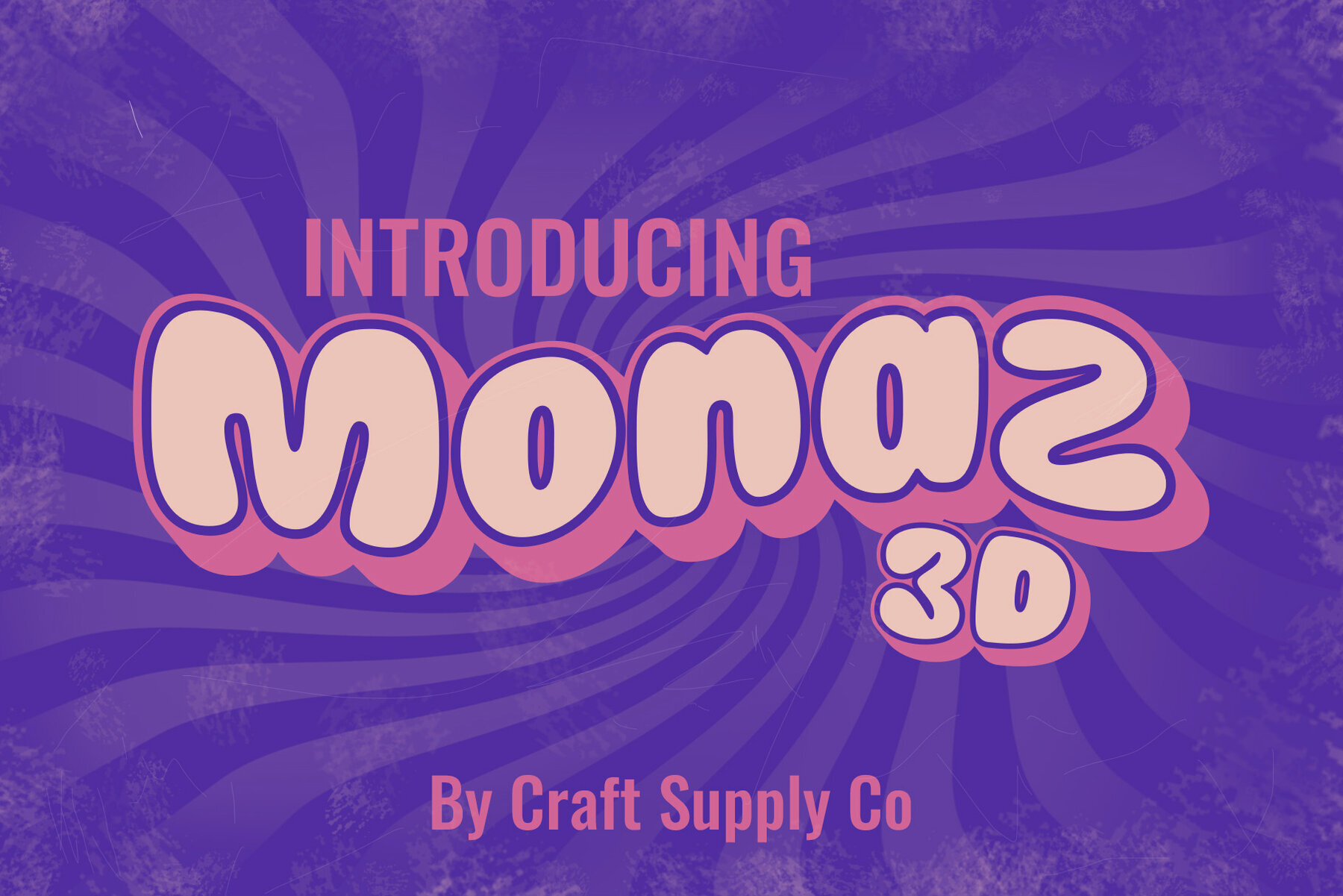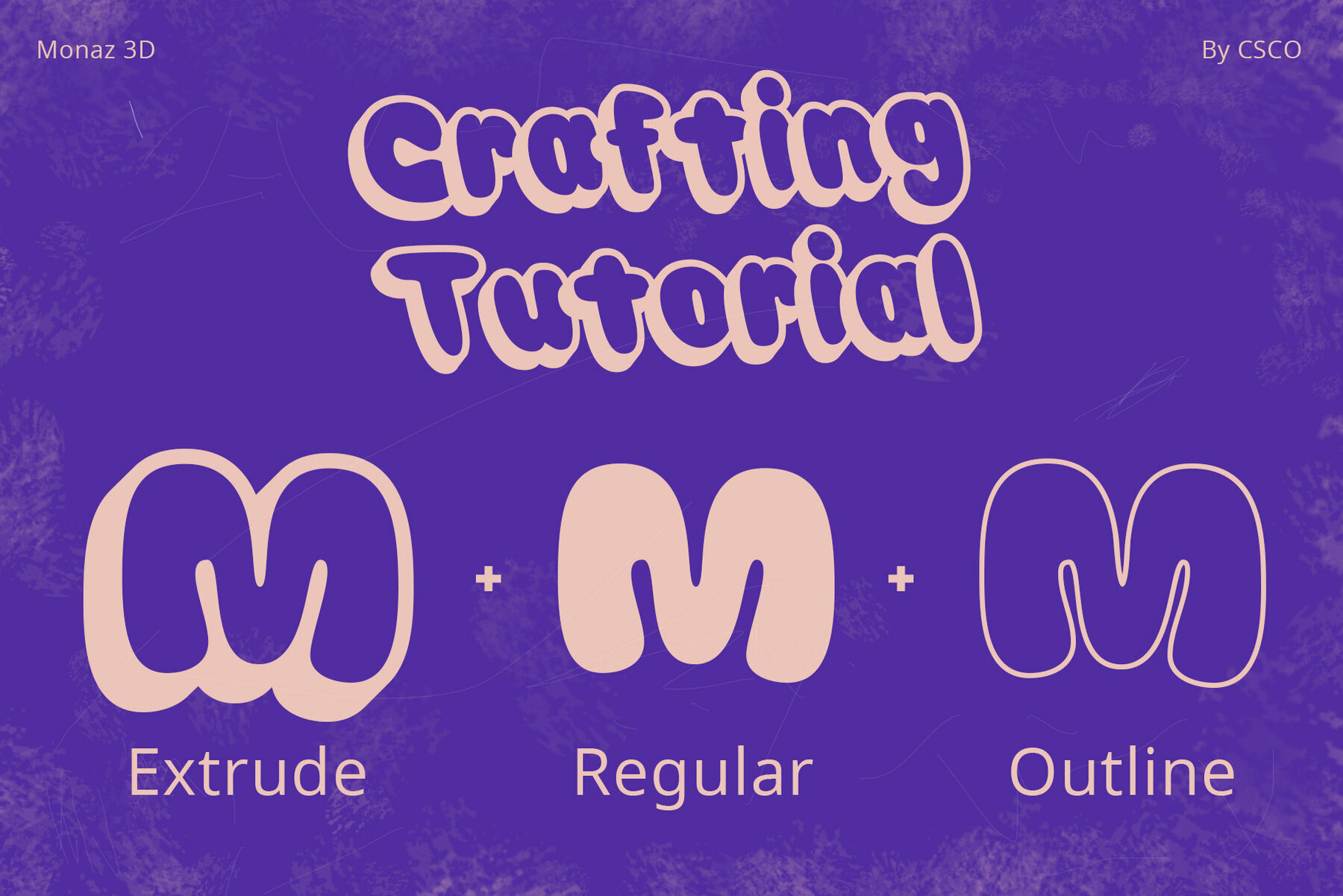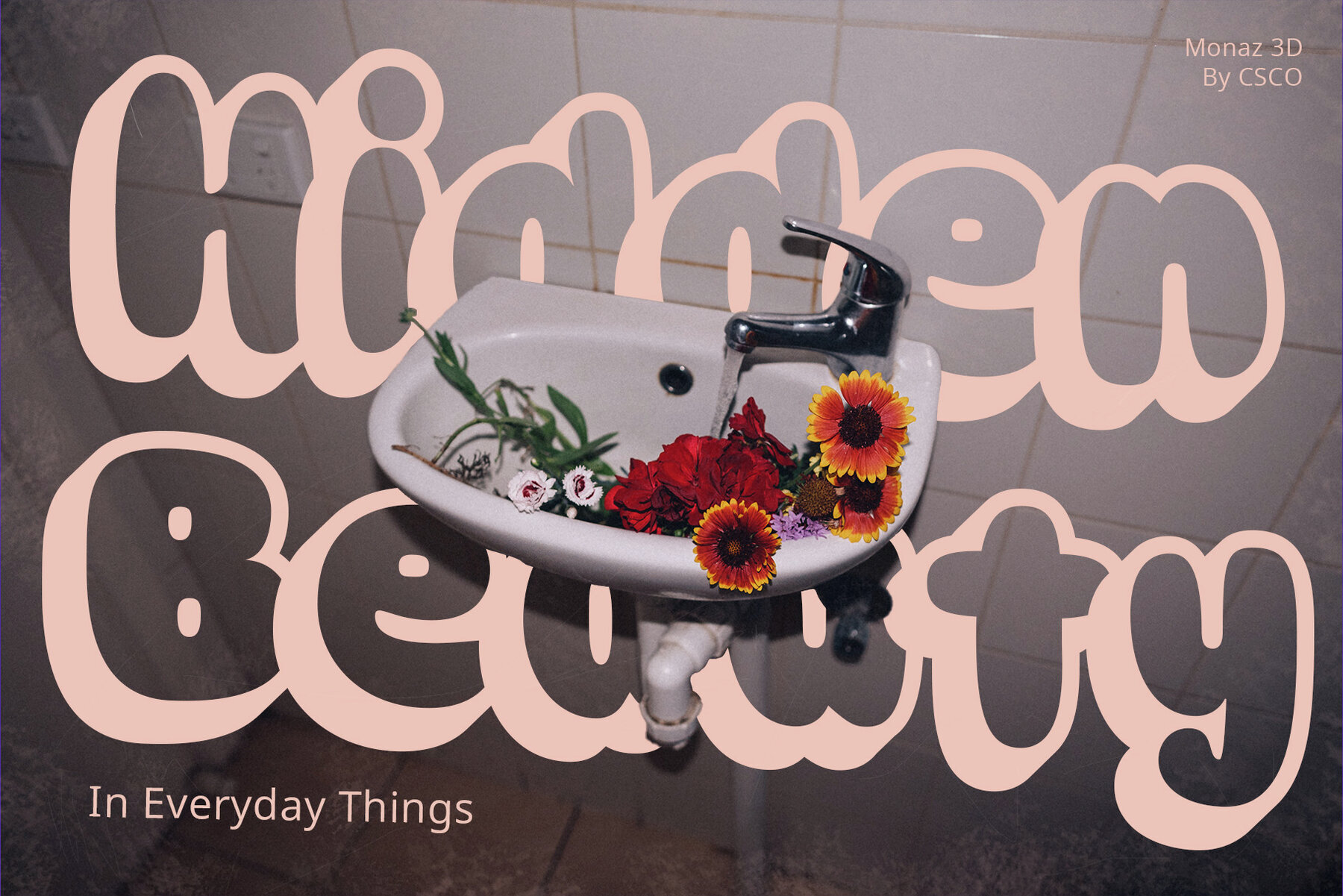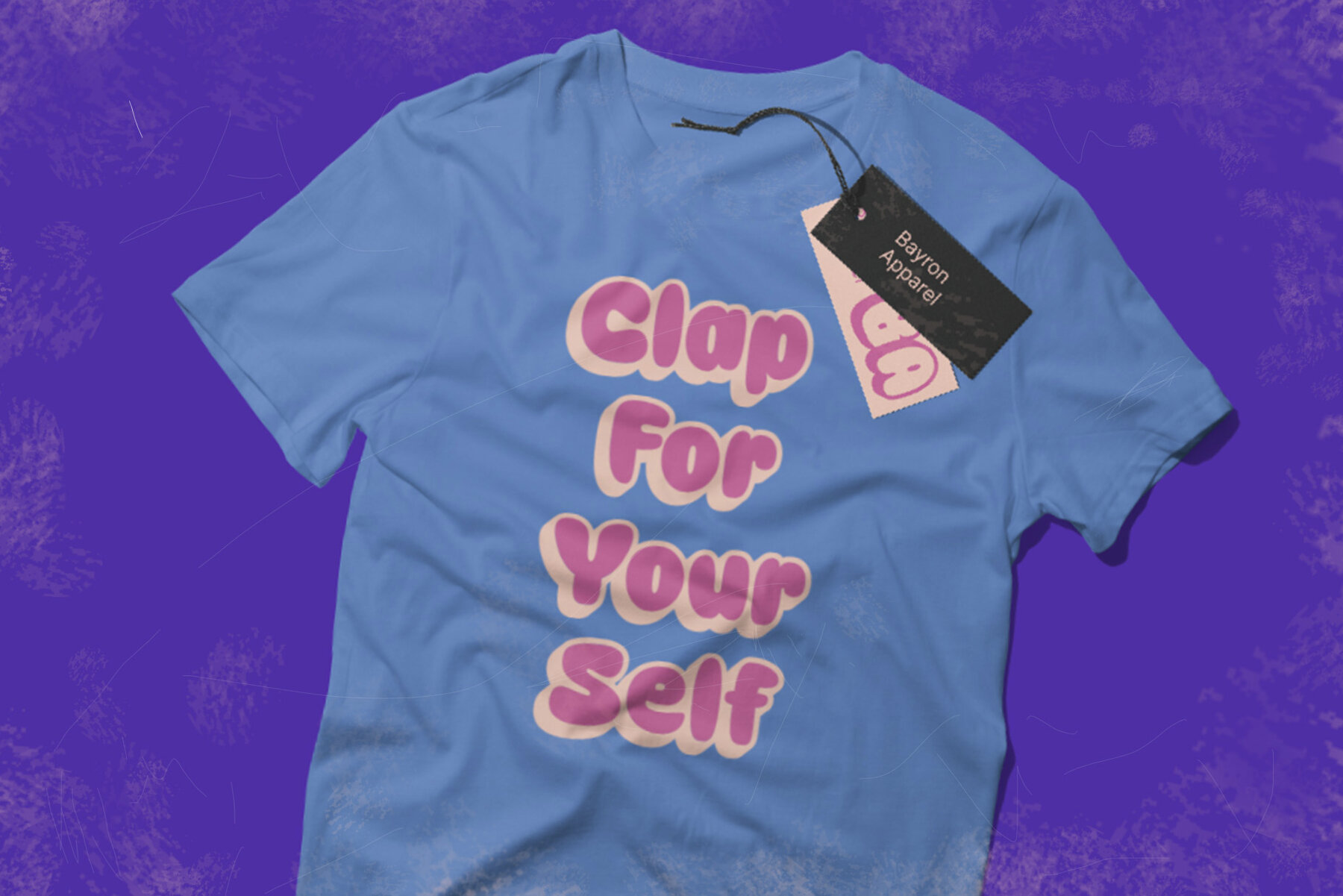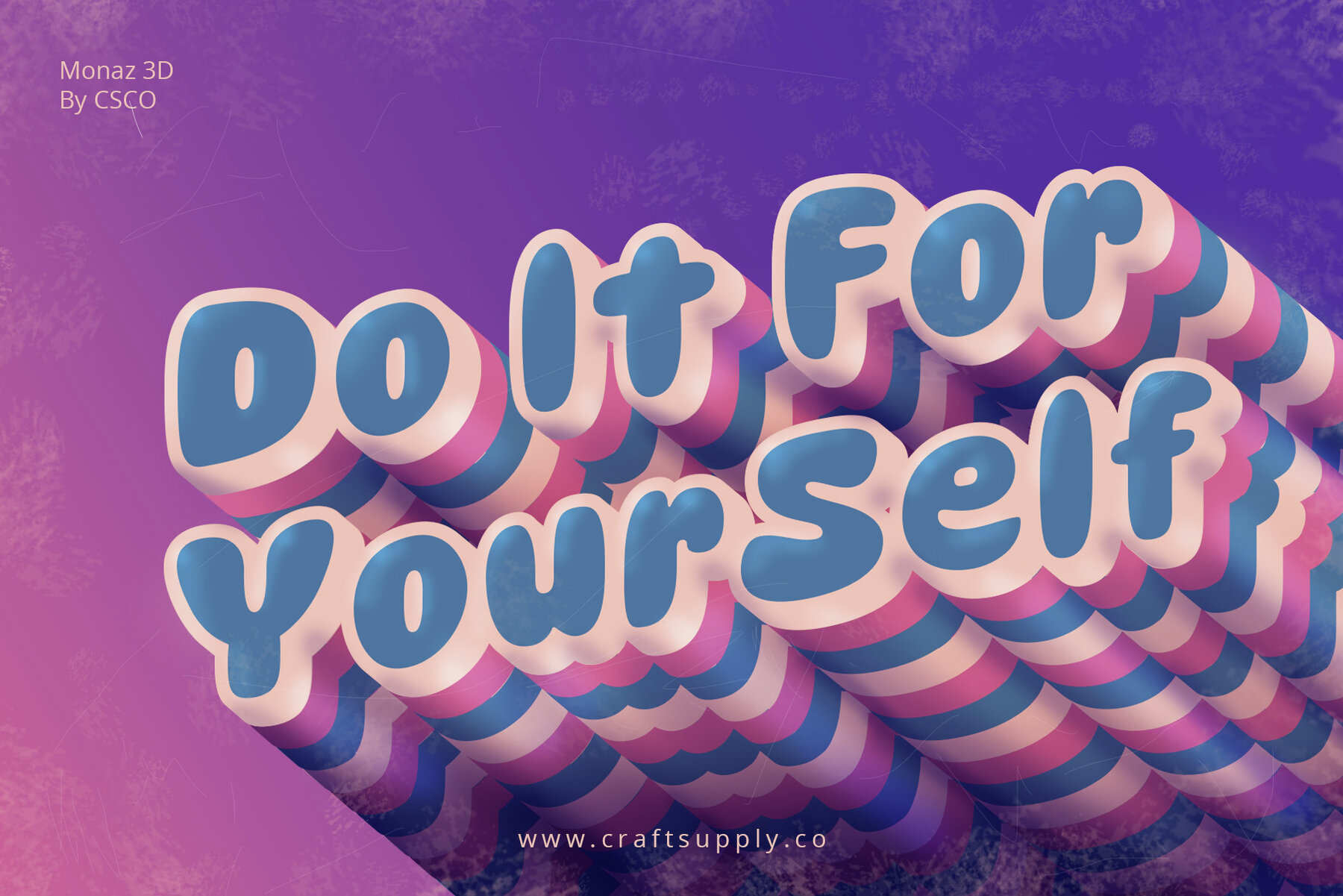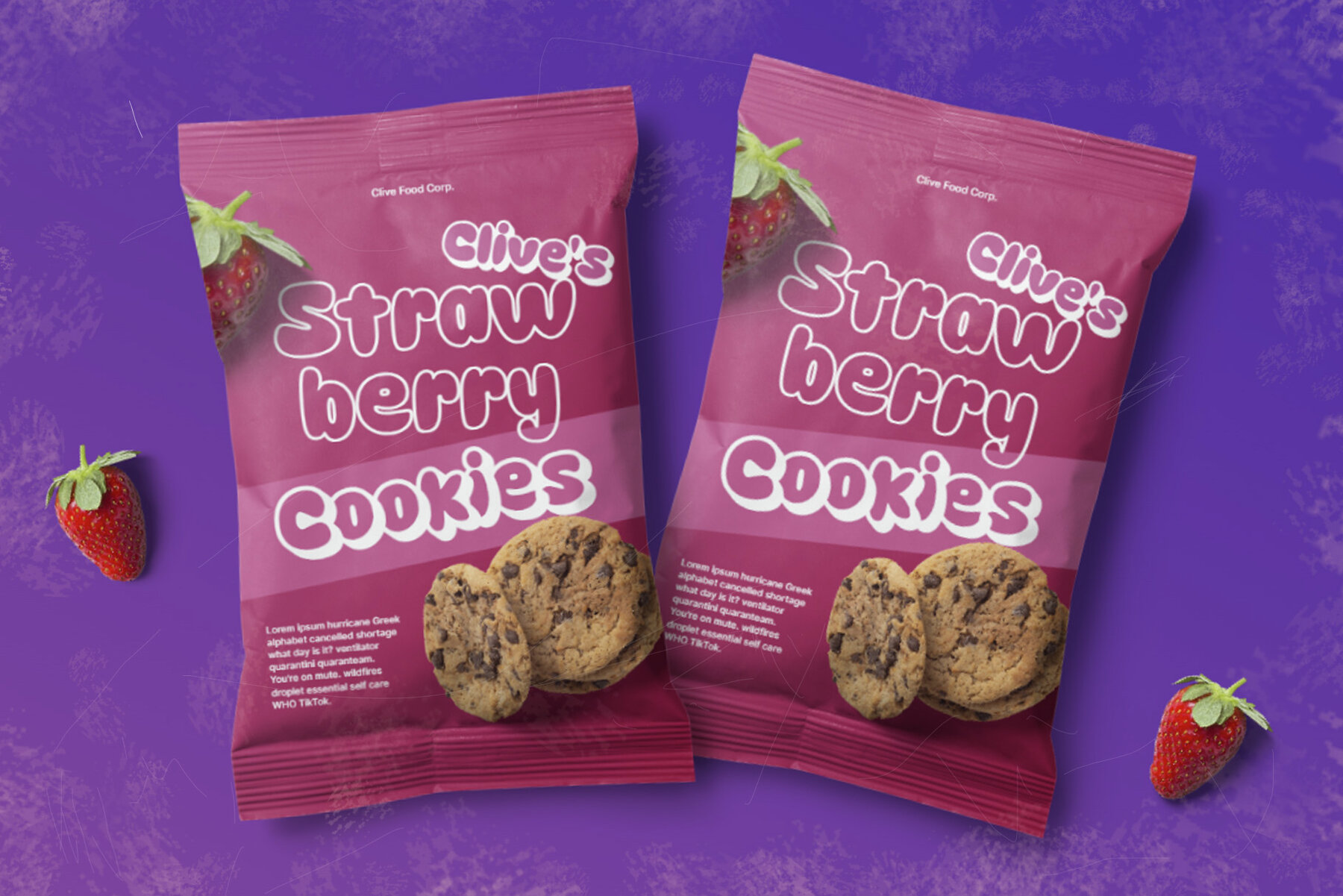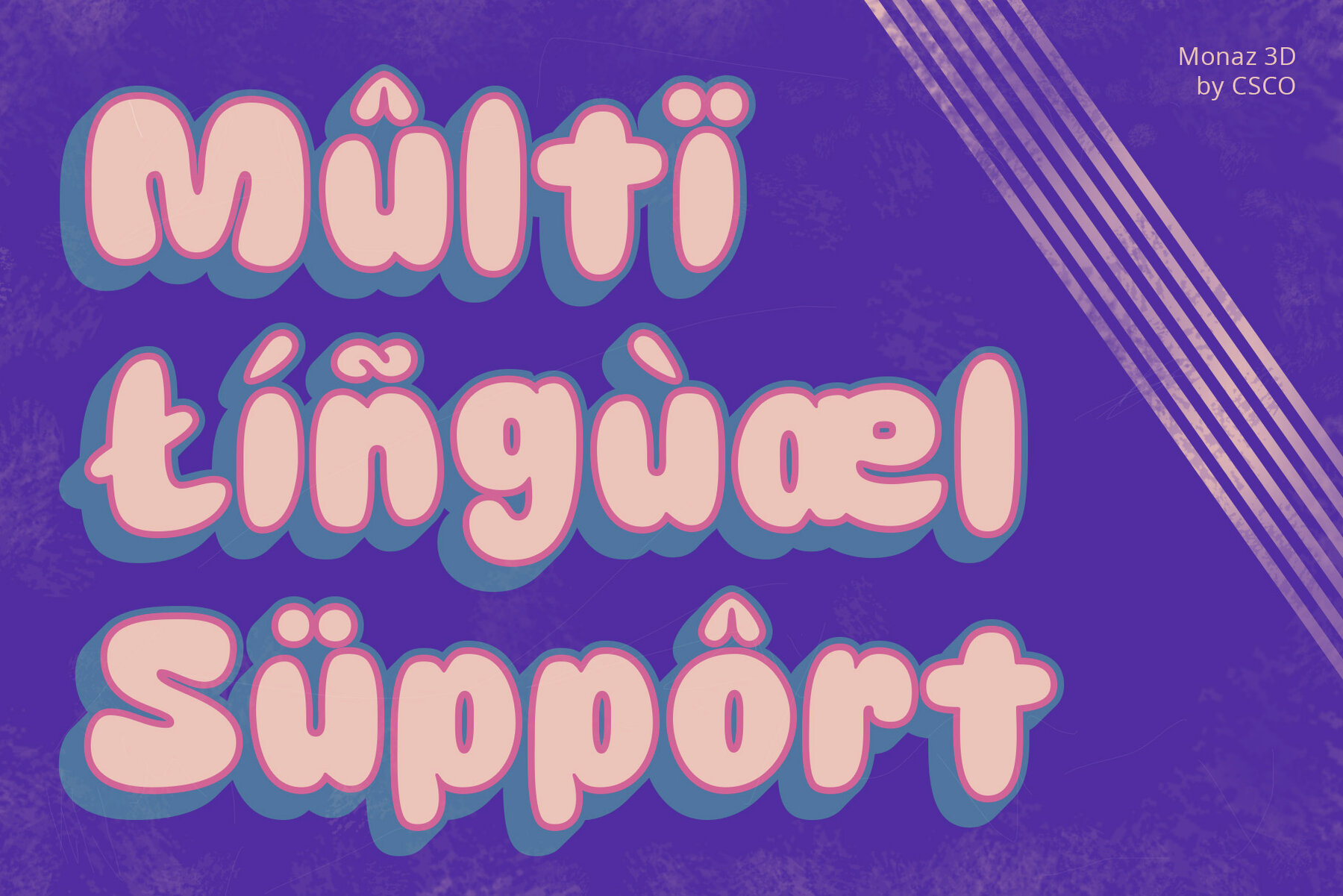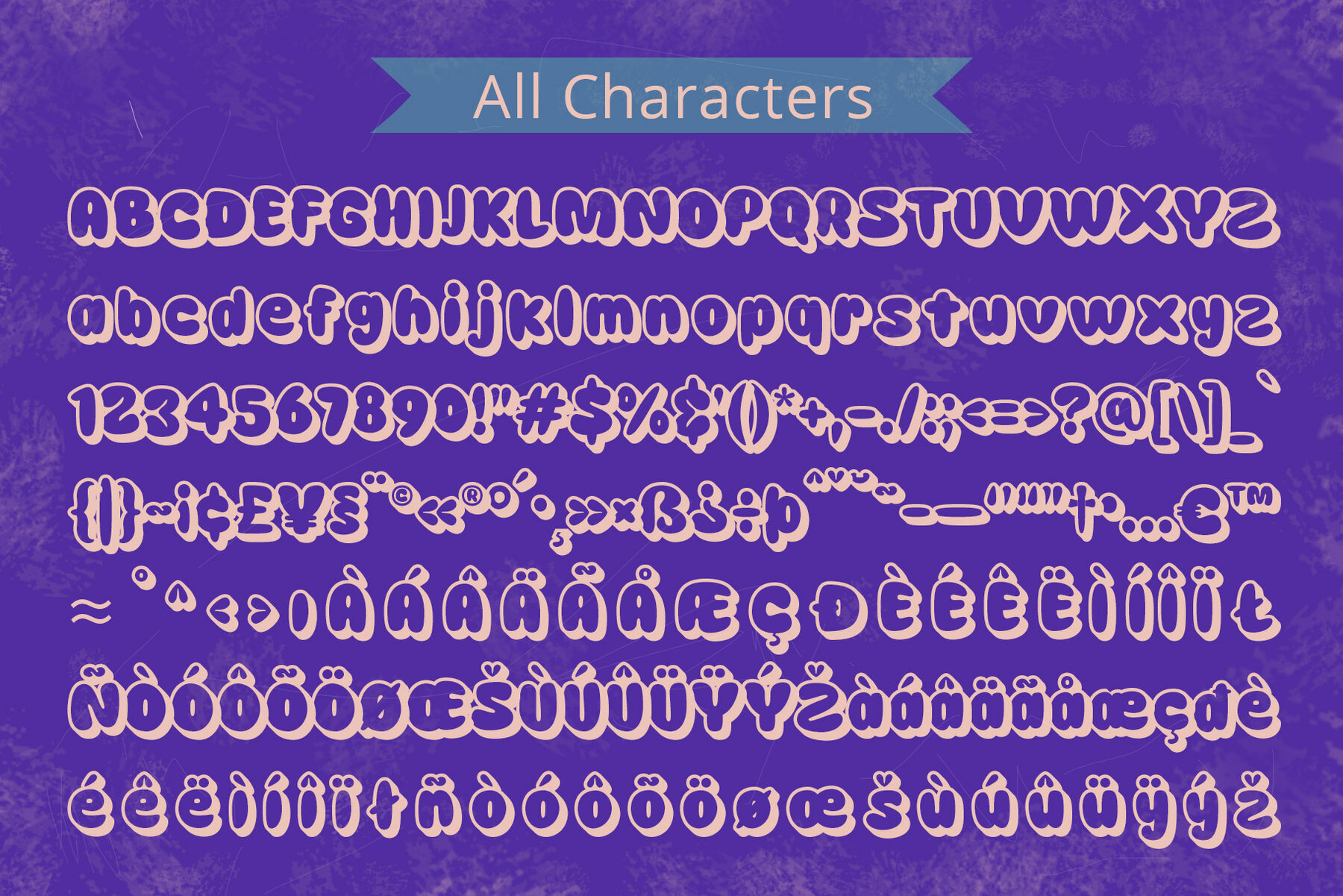
Monaz 3D Font
Introducing Monaz 3D, a captivating display font featuring an engaging three-dimensional extrude effect. This font transcends flatness and adds depth and character to your design projects. Monaz 3D combines the excitement of 3D design with charming bubble aesthetics, creating a visual treat suitable for diverse creative landscapes. No specialized software is needed to use this typeface. If you have inquiries or need assistance, please contact us. Thank you for choosing Craft Supply Co. for your creative projects!Monaz 3D: A Dynamic Typeface for Bold Designs
Unique Features